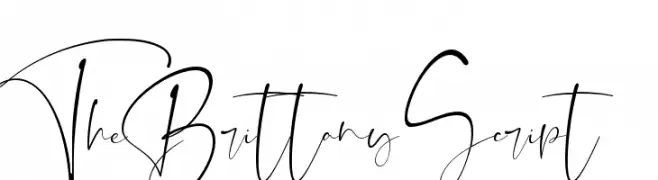
The Brittany Script Font
A modern, elegant script font with flowing, connected characters.
Brittany Rays Demo Font
A modern, elegant font with high contrast and sophisticated flair.
BDParisDemo Font
A refined and elegant font with thin, uniform strokes and generous spacing.
Brittany Coast Font